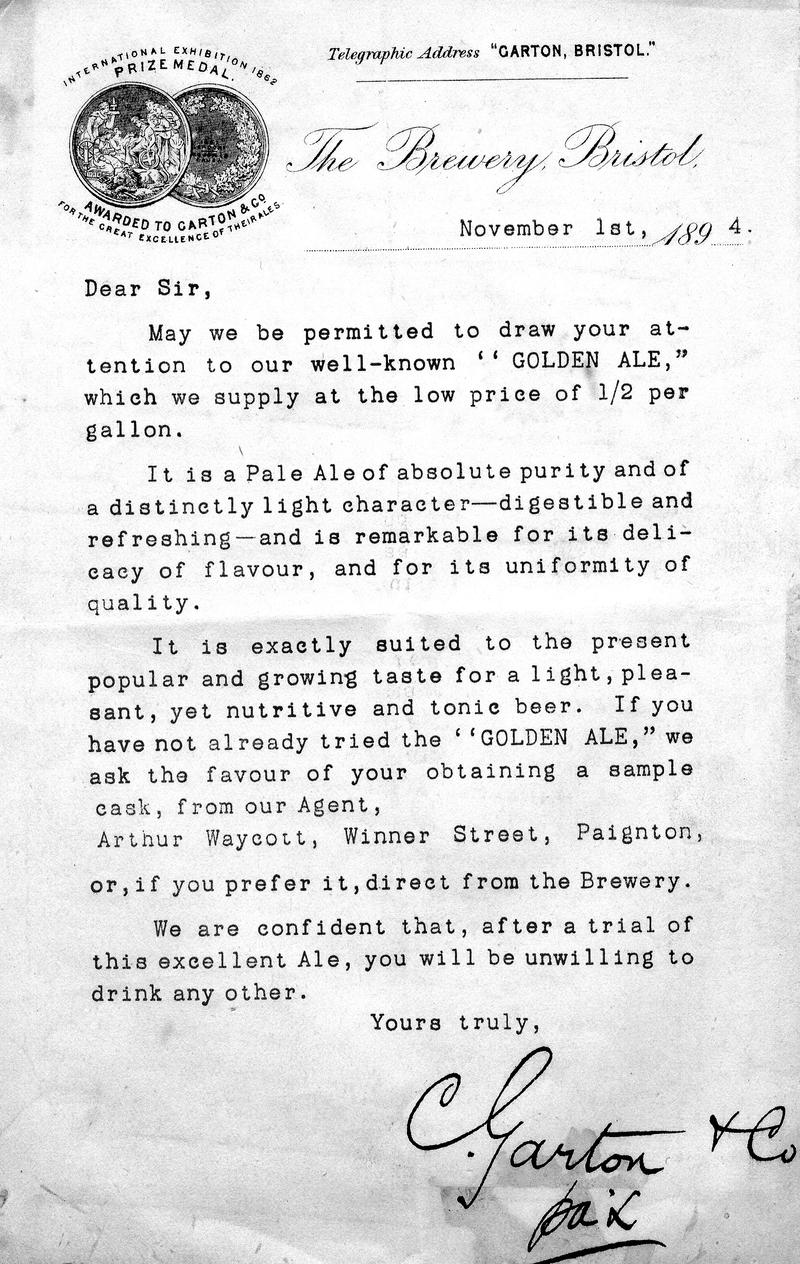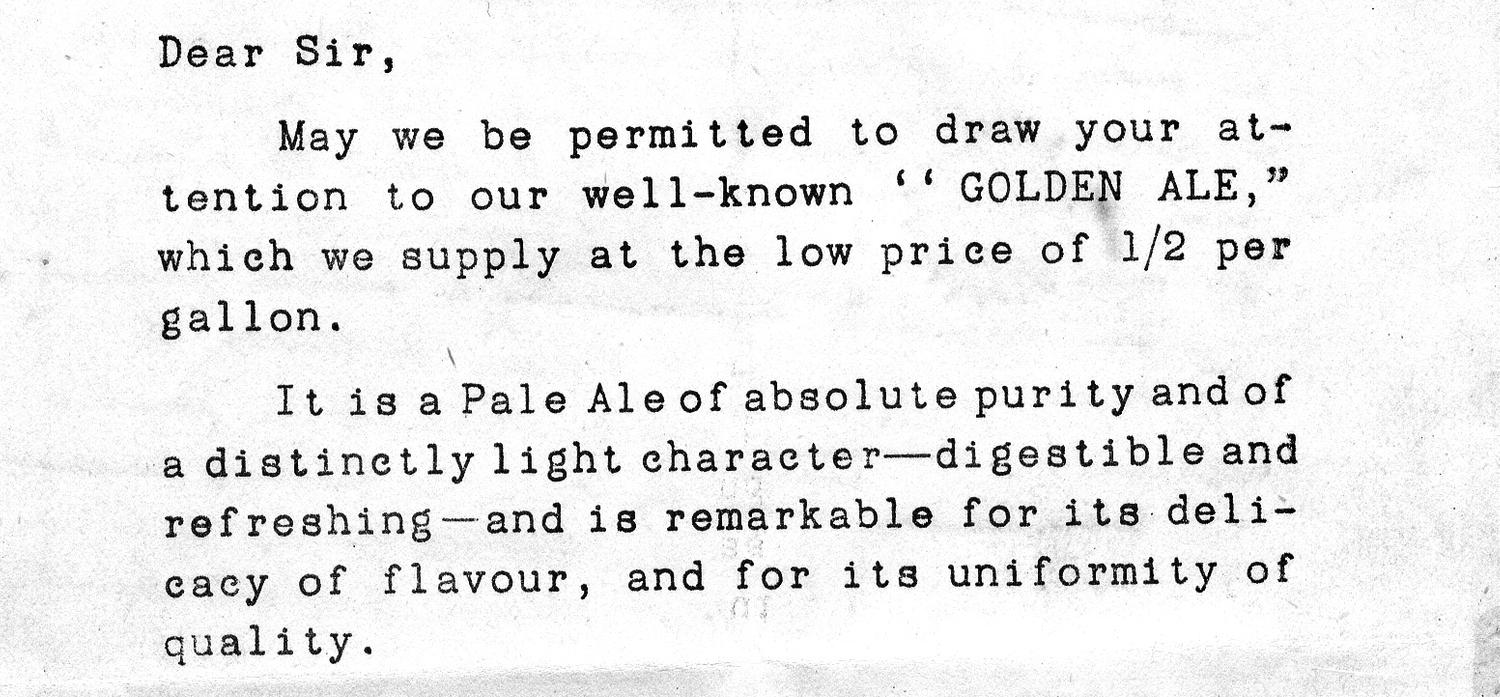
Garton Sans is the natural evolution of its serif counterpart. It features the unique decorative qualities found in the original, but by designing it without serifs, the level of expression has been turned down.
Garton Sans is designed to pair with Garton or to be used on its own. It comes in two distinct styles: Ornate brings a refined and decorative element to the design, with curved strokes that soften its mechanical origins, while Plain offers a more conventional interpretation for versatile everyday use.
Each style is available in five weights with corresponding italics, and both include extensive OpenType features and stylistic alternates that expand their creative possibilities.
OpenType Features
CASE SENSITIVE
FRACTIONS
LINING NUMERALS
SINGLE STORY a AND g